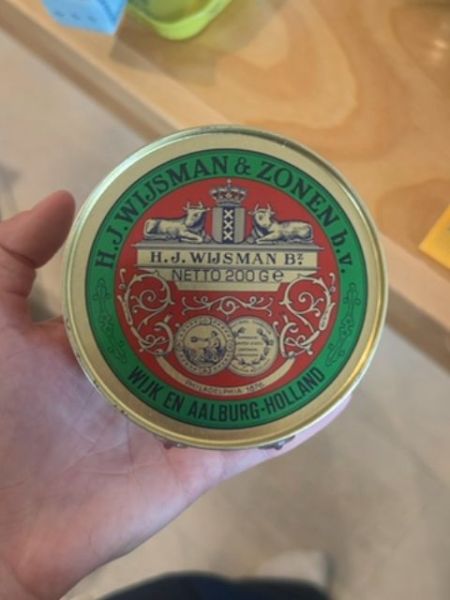
H.J. Wijsman & Zonen B.V.
This is a canned butter product typically used for cooking and baking, known for its long shelf life and rich flavor.
1846
Netherlands
The typography on the packaging uses a classic serif font, giving it a traditional and trustworthy appearance. The use of different font sizes and capital letters creates a hierarchy, emphasizing the brand name and origin.
The packaging features a round tin with a vibrant red and green color scheme. It has a traditional design with emblematic graphics, including cows and heraldic symbols that suggest a sense of history and quality.
- The brand is one of the oldest known producers of canned butter.
- Canned butter is favored for its long-term storage capabilities.
- This butter is often exported widely, particularly to tropical regions.